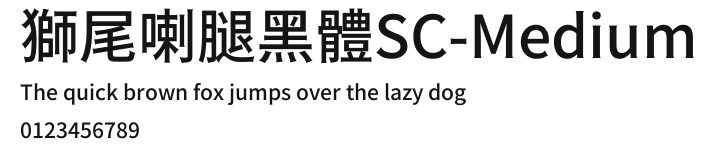
獅尾喇腿黑體SC-Medium Preview
• Font Name: 獅尾喇腿黑體SC-Medium
• Full Font Name: 獅尾喇腿黑體SC-Medium
About 獅尾喇腿黑體SC-Medium.ttf
獅尾喇腿黑體SC-Medium.ttf is a modern, elegant sans-serif font designed for ultimate readability and visual harmony. Perfect for branding, headlines, web design, and print materials.